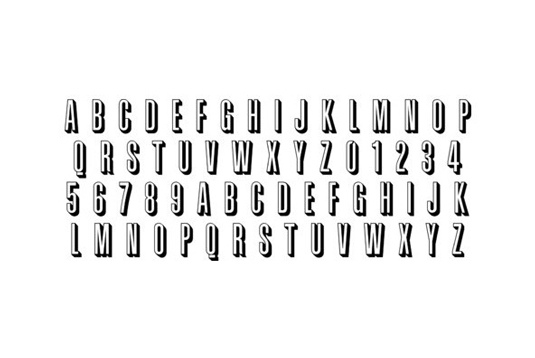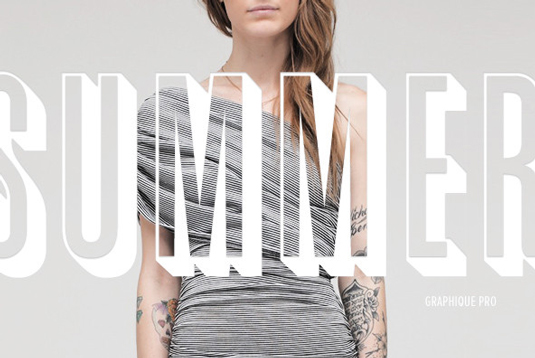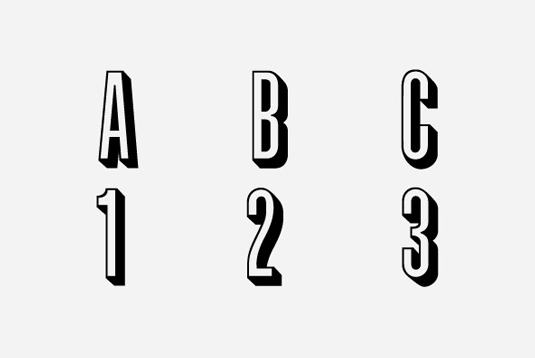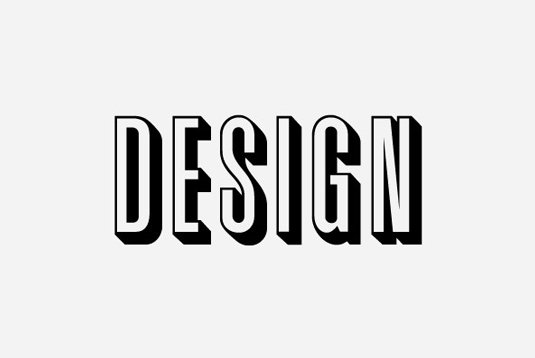
Font of the day: Graphique Pro
Graphique Pro by Ralph M. Unger
Originally created by Swiss designer Hermann Edenbenz in 1945, Graphique was digitally remastered and expanded by German type designer Ralph M. Unger for digital type company profonts.
Comprised of more than 400 characters including the complete Latin and Cyrillic glyph sets, the font is described by type foundry YouWorkForThem as a 'Caps-only font as outline shadow, very narrow, very economic, and thus, ideally suited for headlines, posters, signs, CD-covers, book titles and a lot more'.